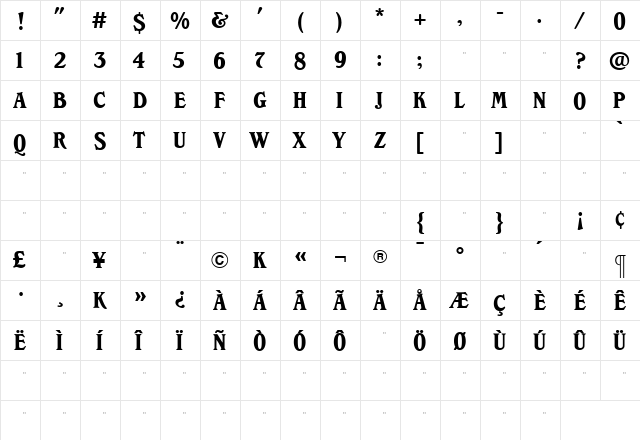
SycamoreBold Roman
Design Context for SycamoreBold Typeface
SycamoreBold takes a measured approach to typography — its balanced proportions and neutral character make it a reliable workhorse for both digital and print work. Its bold stroke weight gives it real presence on the page.